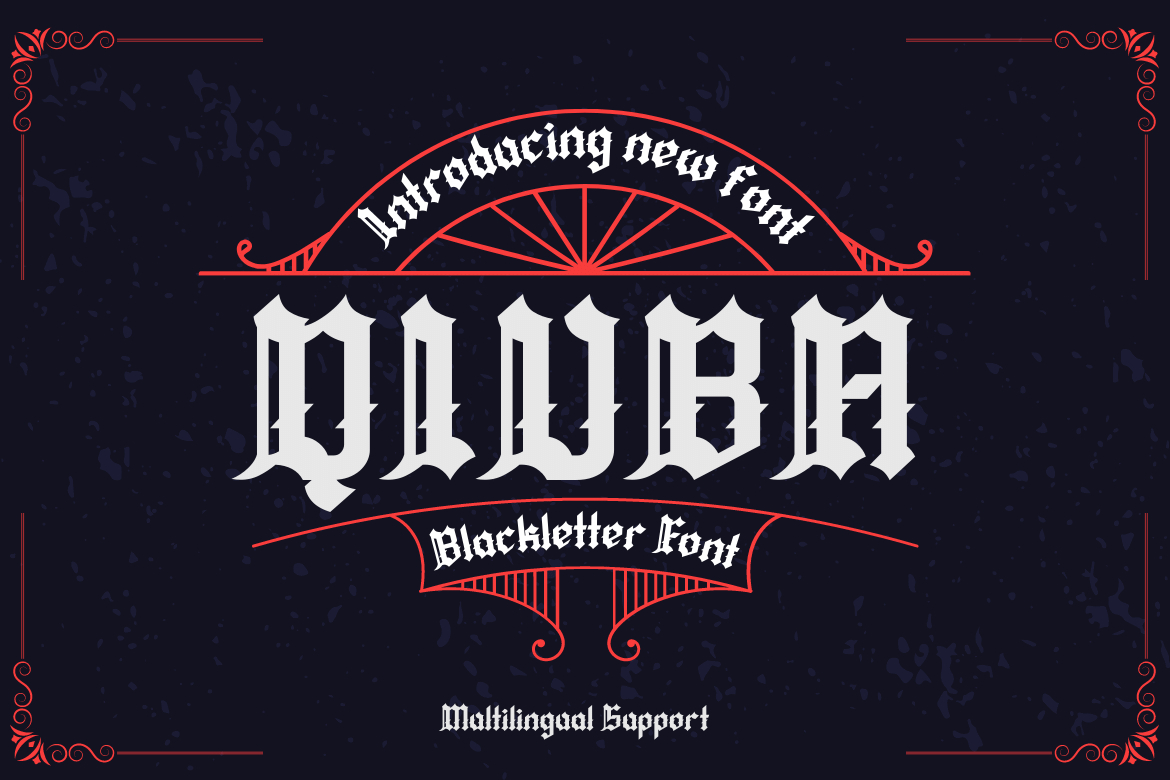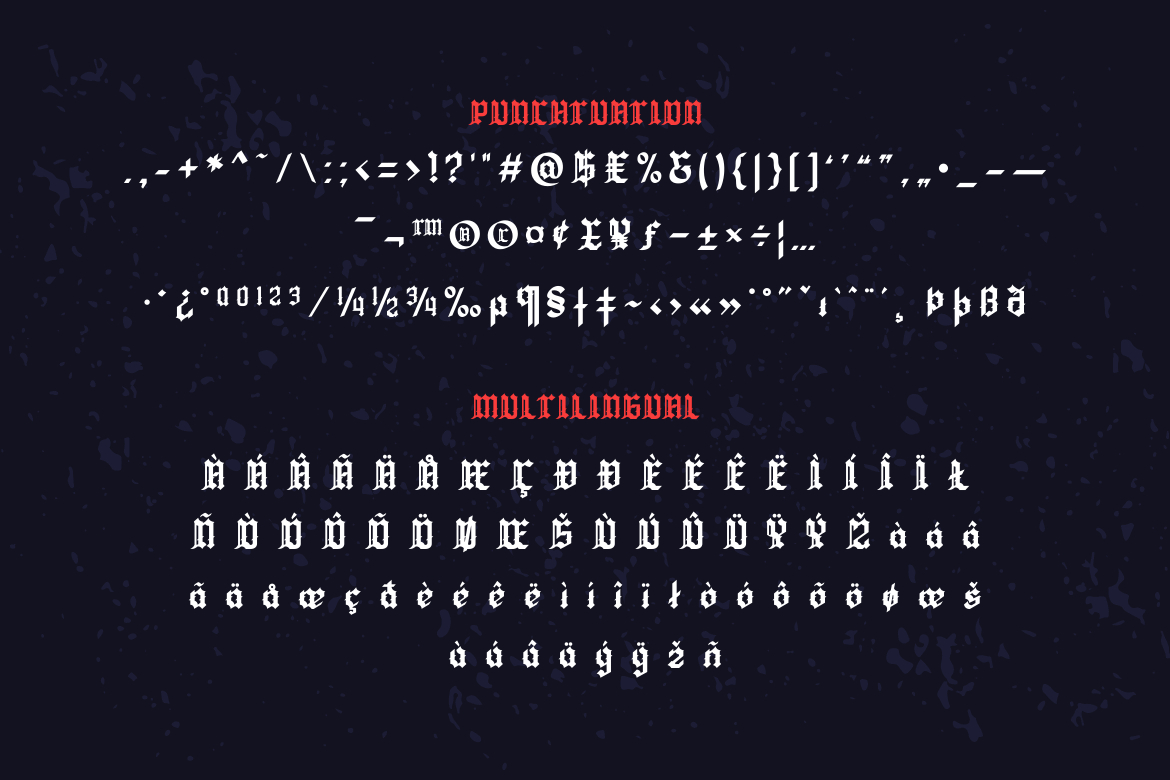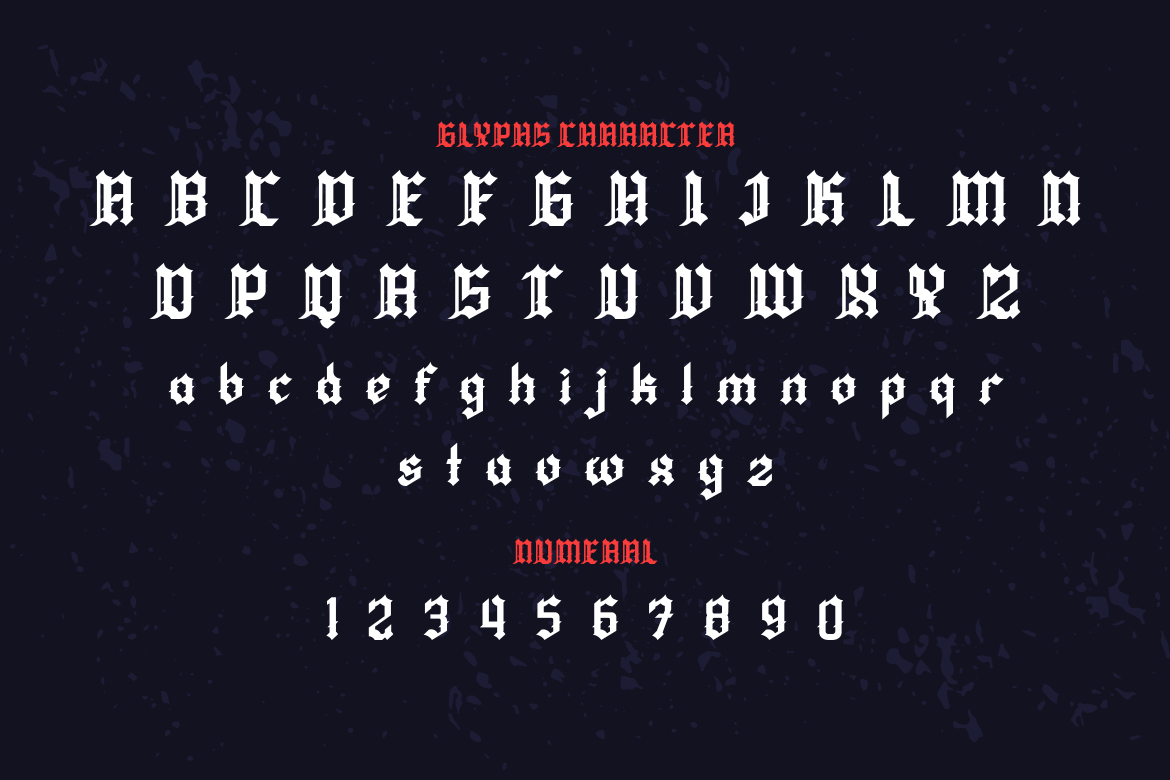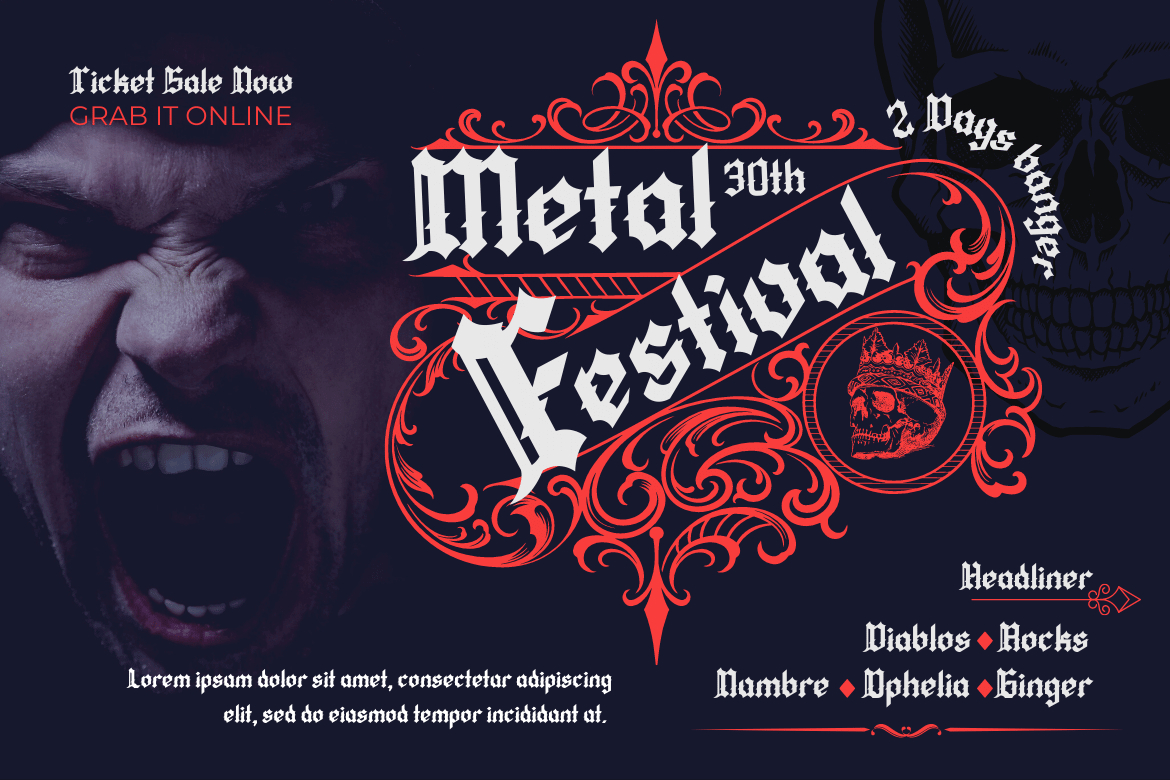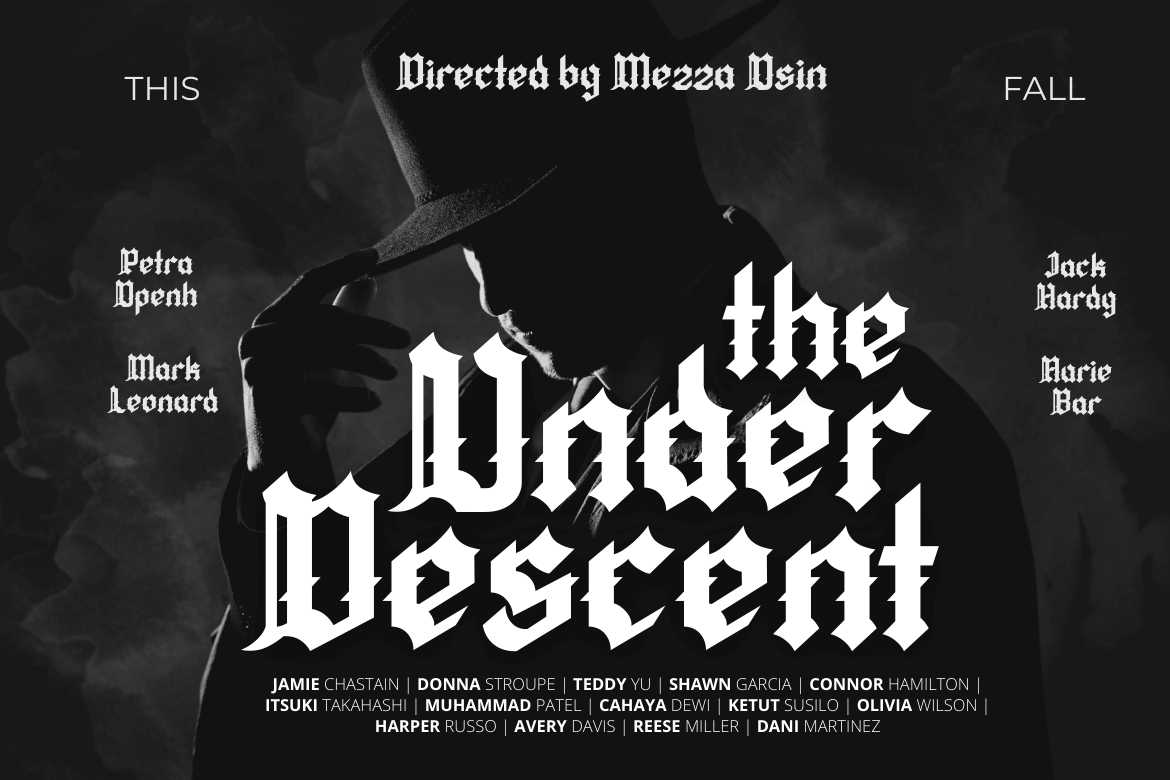
About Qiuba Font
Fonts can make or break a design, so why not use the best? The ideal Gothic font is Qiuba! You can use this cool font to create labels, retro stamps, badges, Oktoberfest posters, and other designs. It’s ideal for any project that calls for a little Gothic flair. Plus, it comes in a variety of beautiful, harmonious forms so you can use the perfect wording for your project.